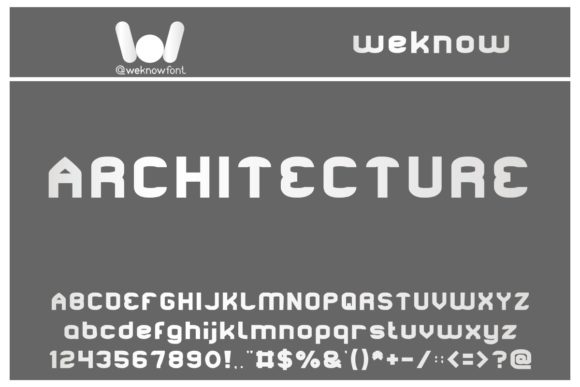
The Ultimate Guide to Architecture Font: A Quirky Display Font for Creative Projects
I’ll never forget the time I was working on a project for a trendy new coffee shop, and I just couldn’t find the right font to capture their eclectic vibe. The client wanted something that was a little bit quirky, a little bit bold, and a lot of personality. That’s when I stumbled upon the Architecture font, and it was love at first sight! 💕
Architecture is a unique and interesting display font that has become a staple in my design toolkit. A little bit quirky, this font looks incredibly adept on a wide variety of contexts, from bold headlines to whimsical signage. In this article, I’ll dive into the world of Architecture font, sharing my honest review, practical tips on how to use it, and some awesome alternatives to try out.
Honest Review: What I Love (and What I Don’t)
- ✅ Unique and quirky personality that adds a touch of whimsy to any design
- ✅ Highly legible, even at smaller sizes
- ✅ Works beautifully in a variety of contexts, from digital to print
- ✅ OpenType features, glyphs, and stylistic alternates galore! 🤩
- ⚠️ Some characters may appear a bit cramped or uneven at very small sizes
- ⚠️ Limited availability of certain language scripts
How to Use Architecture Font: A Practical Guide
The Story Behind Architecture Font
According to the font’s creator, Architecture font was inspired by the eclectic mix of architectural styles found in urban landscapes. The designer wanted to capture the essence of city living – bold, quirky, and full of character. And thus, Architecture font was born! 🌆
Q: Is Architecture font suitable for body text?
A: While Architecture font is incredibly legible, it’s primarily designed for display purposes. For body text, you may want to consider a more traditional serif or sans-serif font.